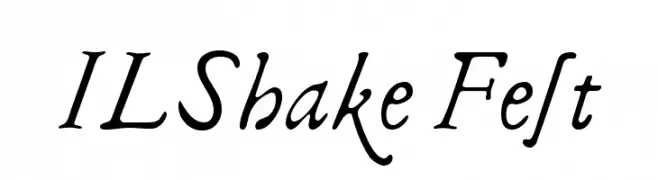
Lemon Shake Shake Font
A playful, bold font with rounded, hand-drawn characters.
Shake Your Plums Font
A playful, rounded font with bold, smooth curves and a modern look.
KG Shake it Off Chunky Font
A playful, bold, and chunky font with a whimsical style.
Shakespeare First Folio Font Font
A vintage, classic font with a hand-crafted, historical appearance.
ILShakeFest Font
An elegant script font with a classic, flowing style and medium contrast.
Quaker Shaker Font
A bold, playful font with wavy, irregular outlines and a dynamic appearance.
Shake that booty Font
A playful, bold, hand-drawn font with thick, rounded strokes and a lively appearance.
Quake & Shake Font
A bold, angular font with a dynamic, geometric style.
KG Shake it Off Font
A playful, hand-drawn font with a whimsical and casual style.
Shaken Font
A bold, distressed font with a grunge texture and rugged appearance.
07-GHOST Zaiphon Font
A bold, angular font with high contrast and geometric shapes, perfect for impactful designs.
The Shaker CAPS Font
A bold, hand-drawn style font with rough, jagged edges and a dynamic, energetic feel.
Choco Shake Font
A playful, bold font with rounded edges and a bubbly appearance.
ShakeySlabserif Font
A slab serif font with a handcrafted, slightly irregular style.
Quake & Shake Max Font
A bold, angular font with a dynamic and energetic style.
Quaker Shaker extra numbers Font
A playful, wavy outline font with a hand-drawn, doodle-like appearance.
The Shakes Font
A jagged, bold font with irregular outlines and a dynamic appearance.
Quake & Shake 3D Font
A bold, 3D geometric font with a playful, dynamic style.
Quake & Shake Condensed Font